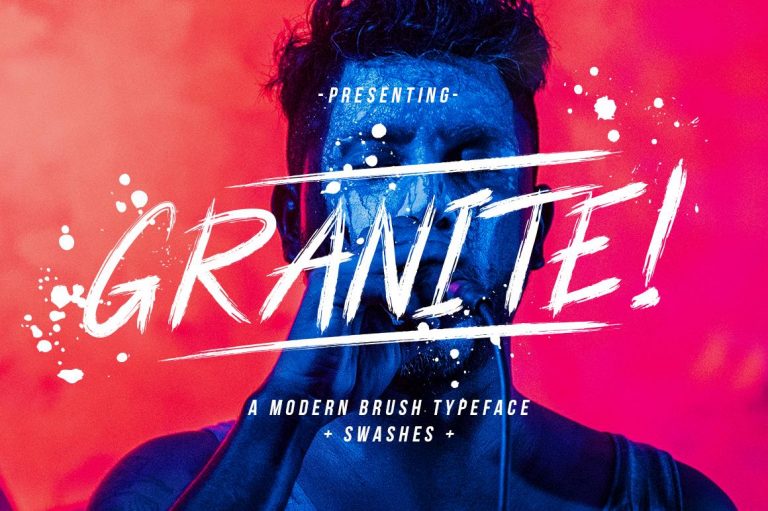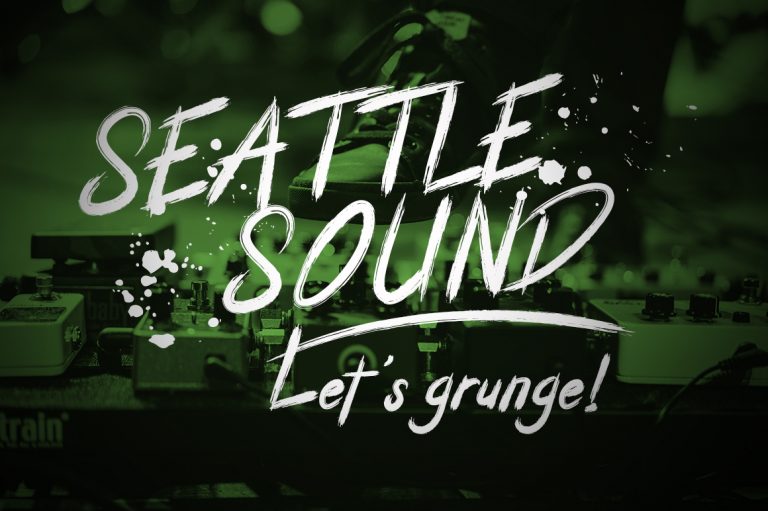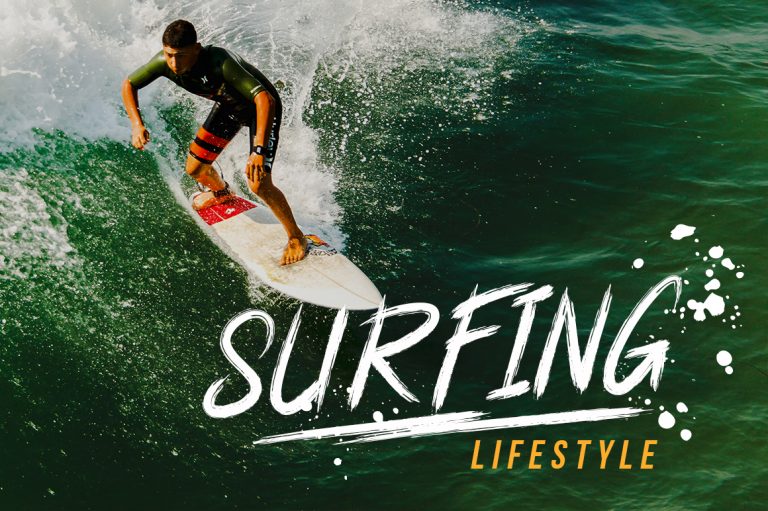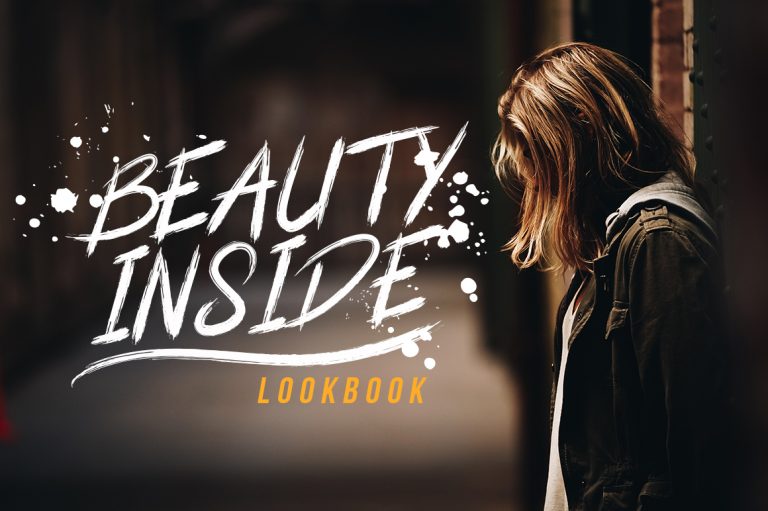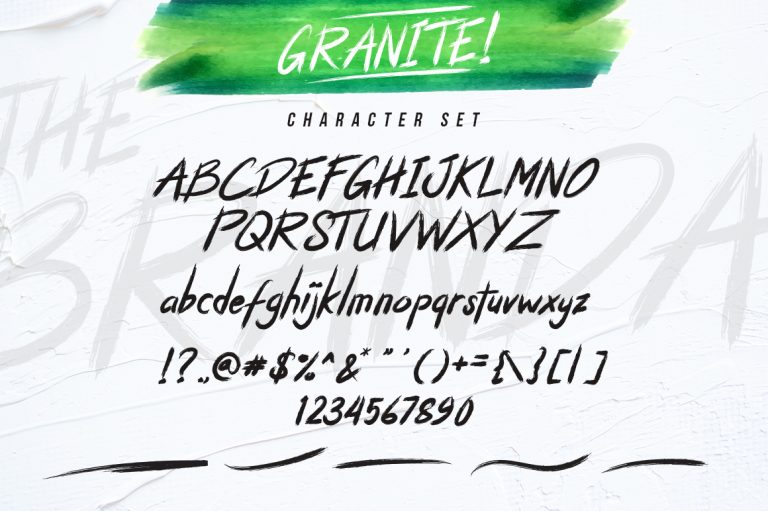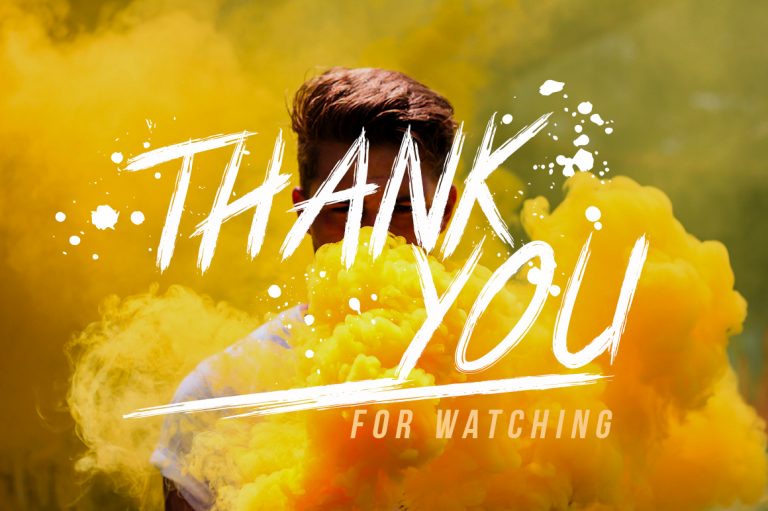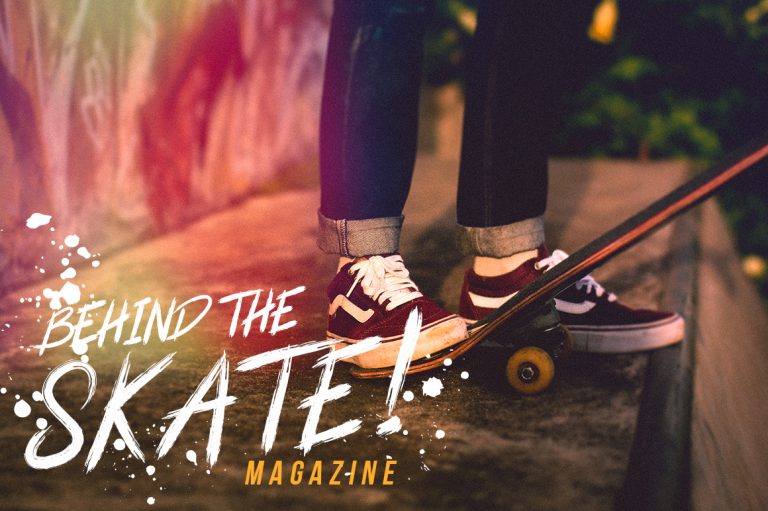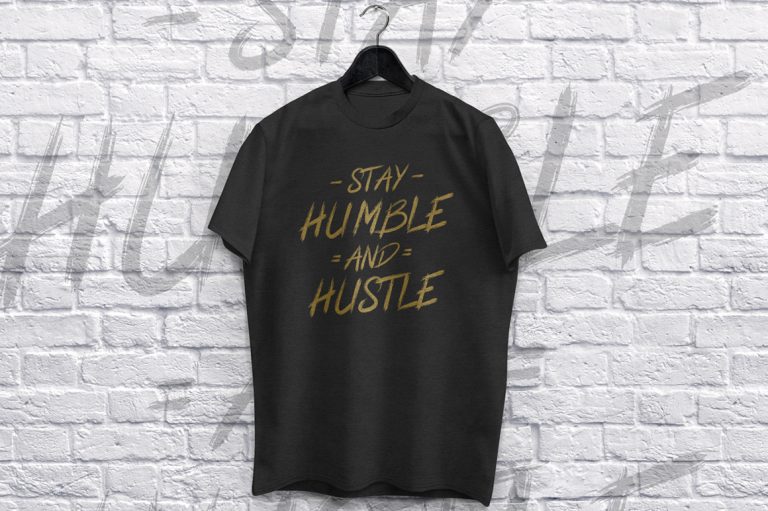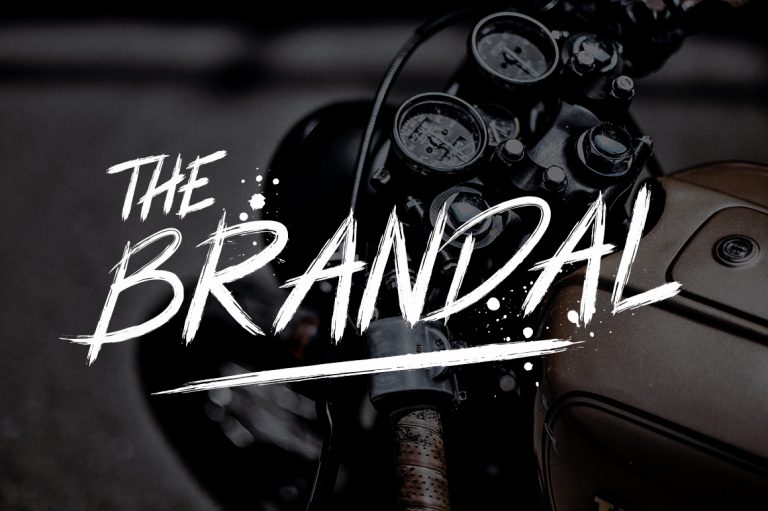
Granite is handmade authentic font brush with stylish street lifestyle and looks like extreme sport style usage.
Granite is perfect for photography, watermark, social media posts, advertisements, logos & branding, invitation, product designs, label, stationery, wedding designs, product packaging, special events or anything that need handwriting taste.
- Ton of glyphs (include Uppercase, Lowercase, Numerals & Punctuations, Ligature, Swashes)
- Ligature & Stylistic alternate
Granite Brush